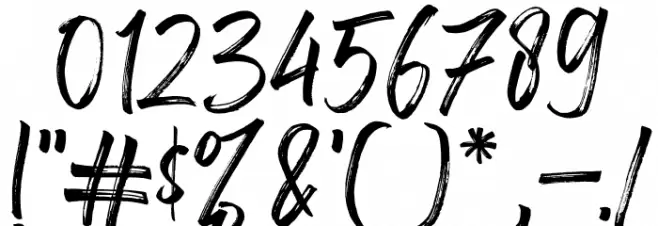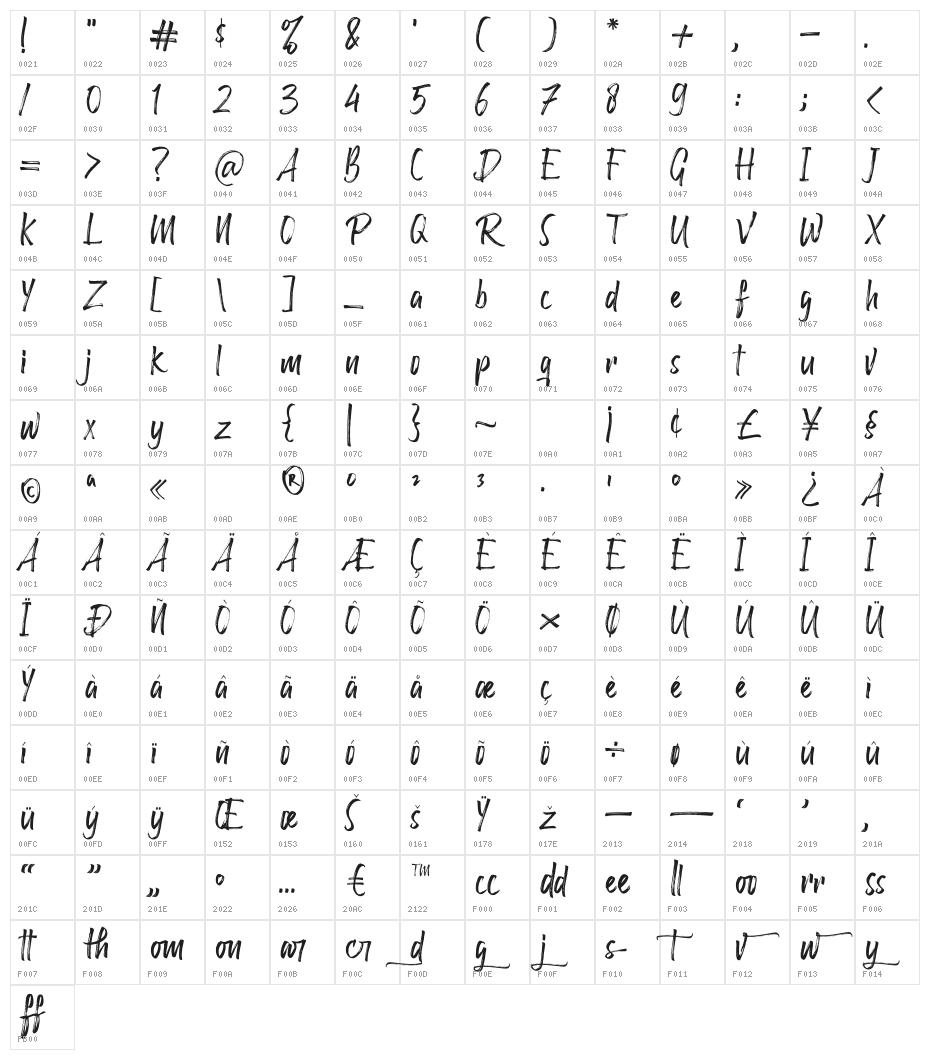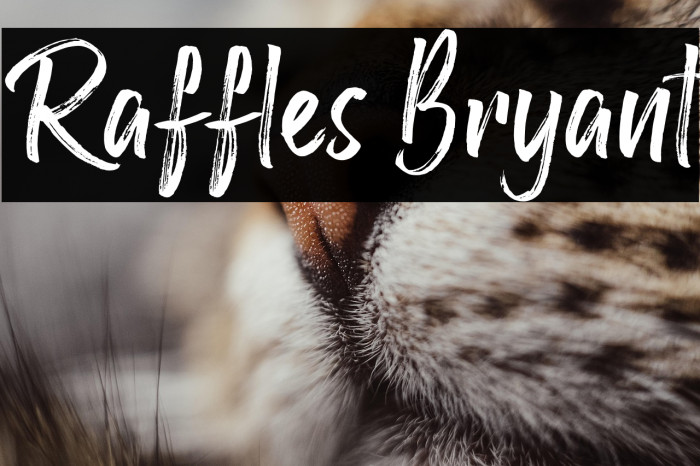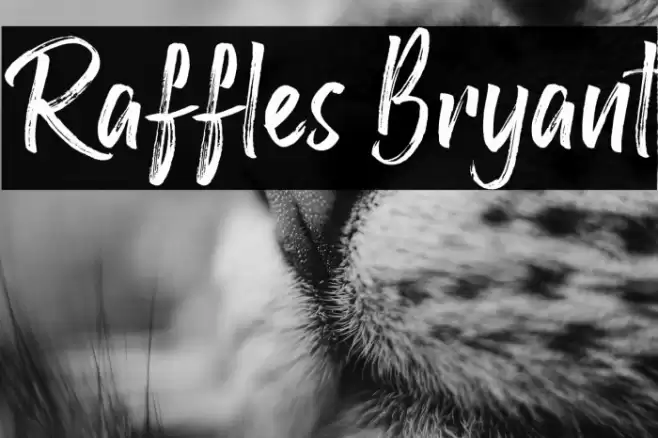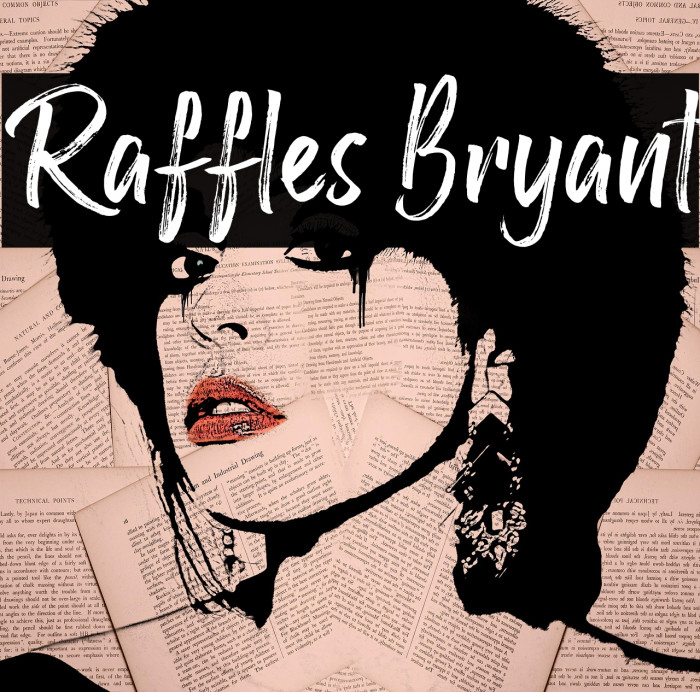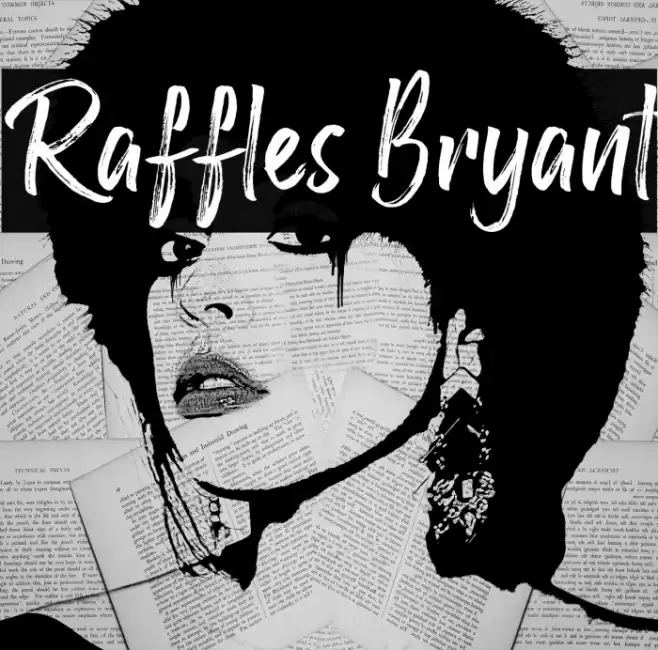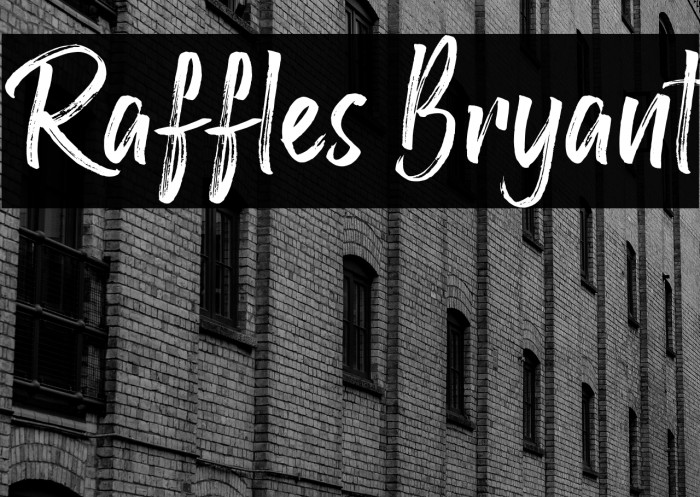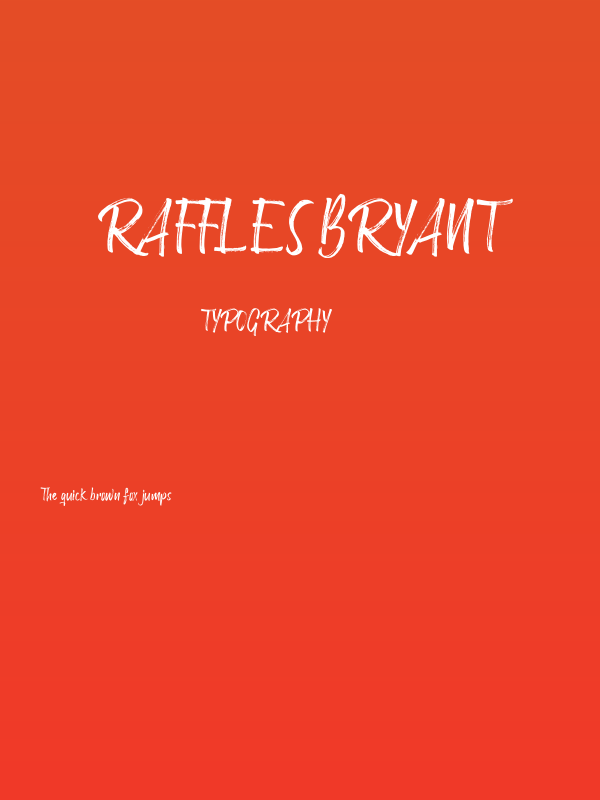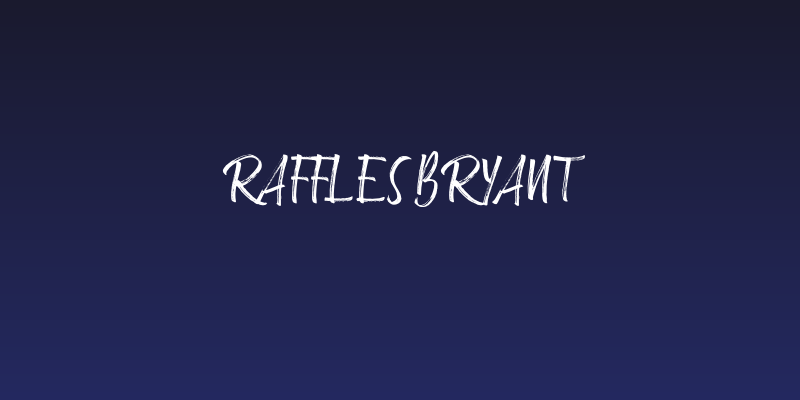
Raffles Bryant Font
Raffles Bryant Description
This font features a dynamic and expressive handwritten style, characterized by its bold, brush-like strokes that convey a sense of energy and movement. The letters are slightly slanted, adding to the casual and informal feel. The uppercase and lowercase letters maintain a consistent style, with varying stroke widths that create a lively texture. Numbers and special characters are designed to match the overall aesthetic, ensuring a cohesive look across all elements. The font's organic appearance makes it suitable for projects that require a personal touch.
| Proposed Projects | Ideal for greeting cards, invitations, posters, and branding materials that seek a personal and artistic flair. |